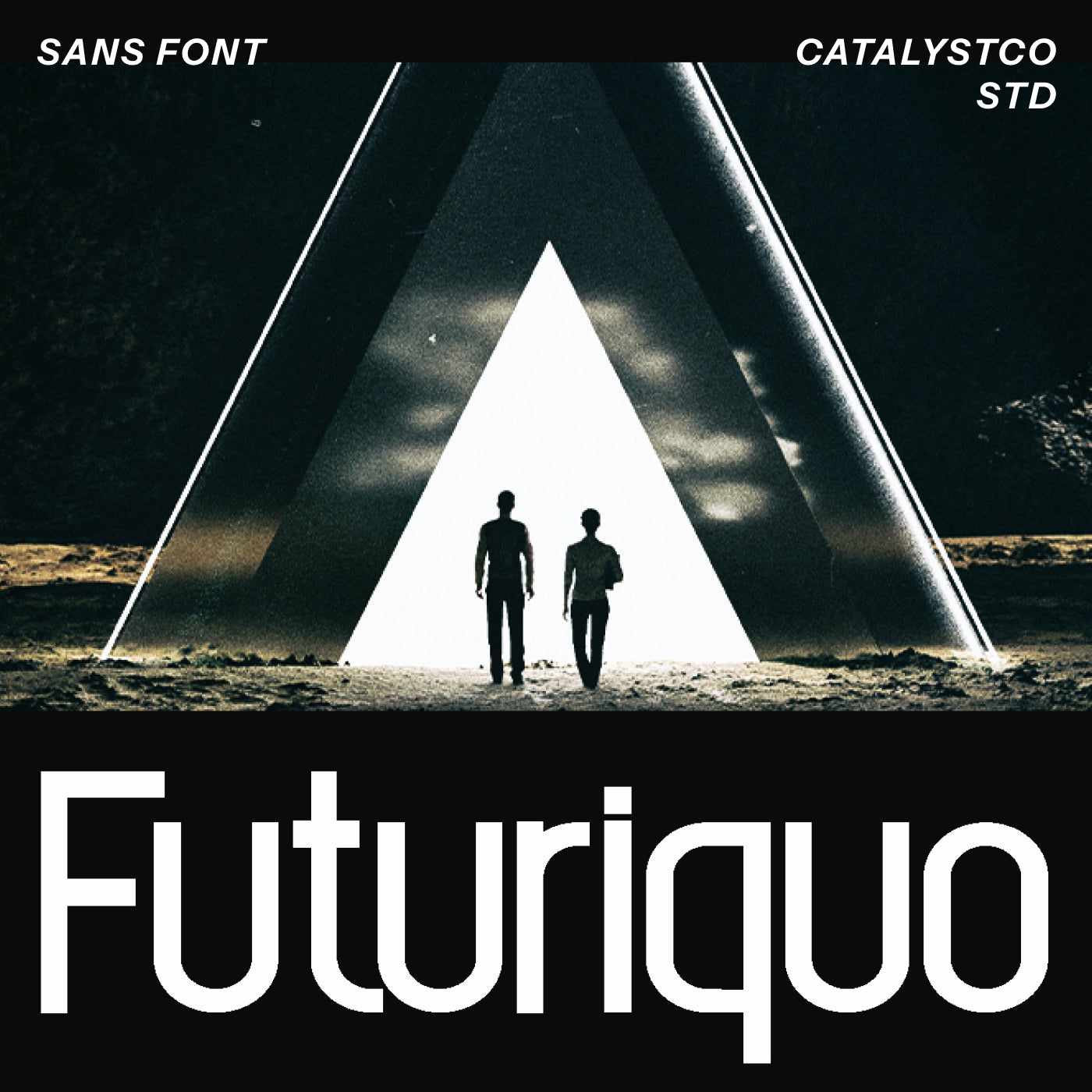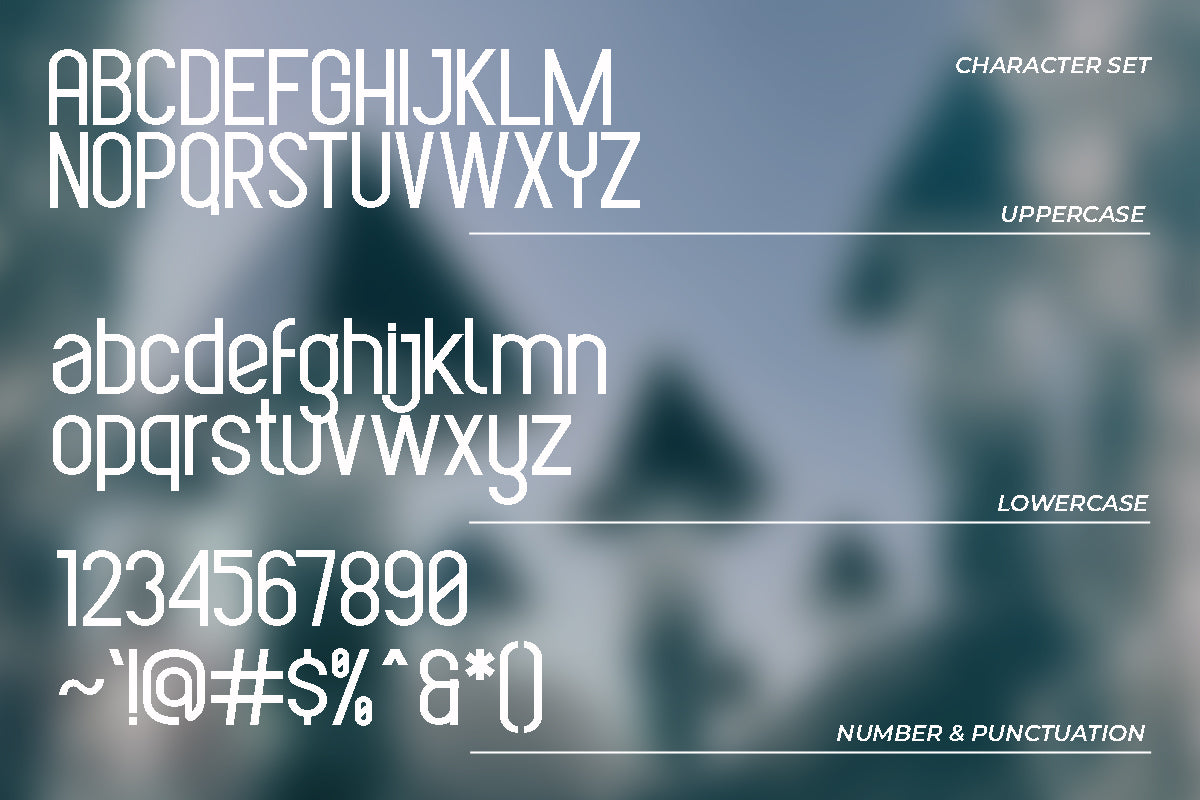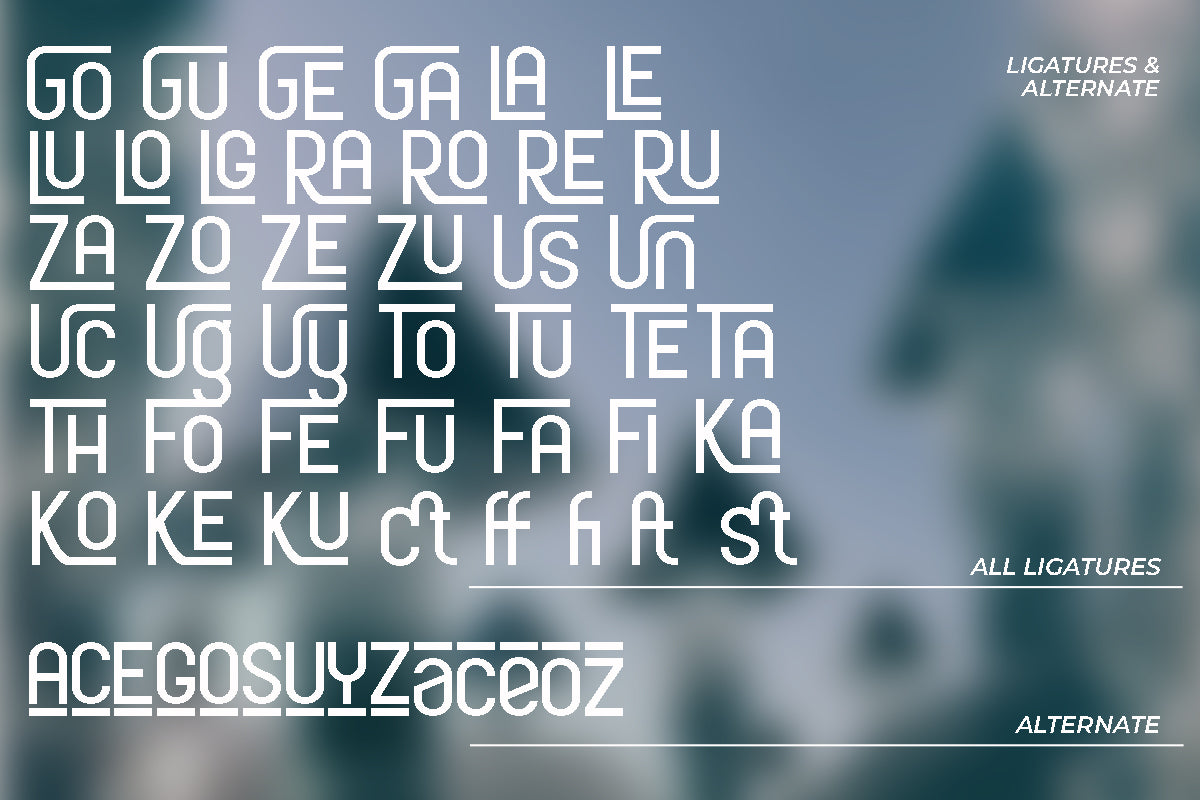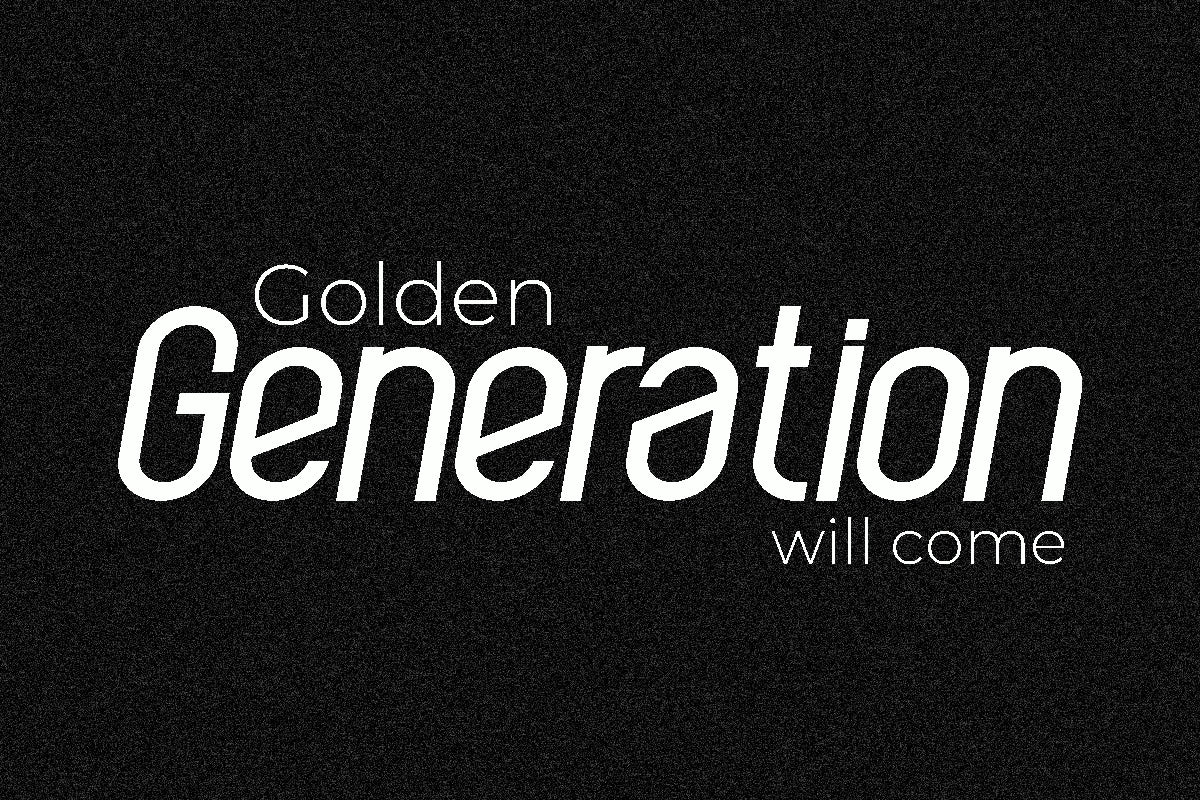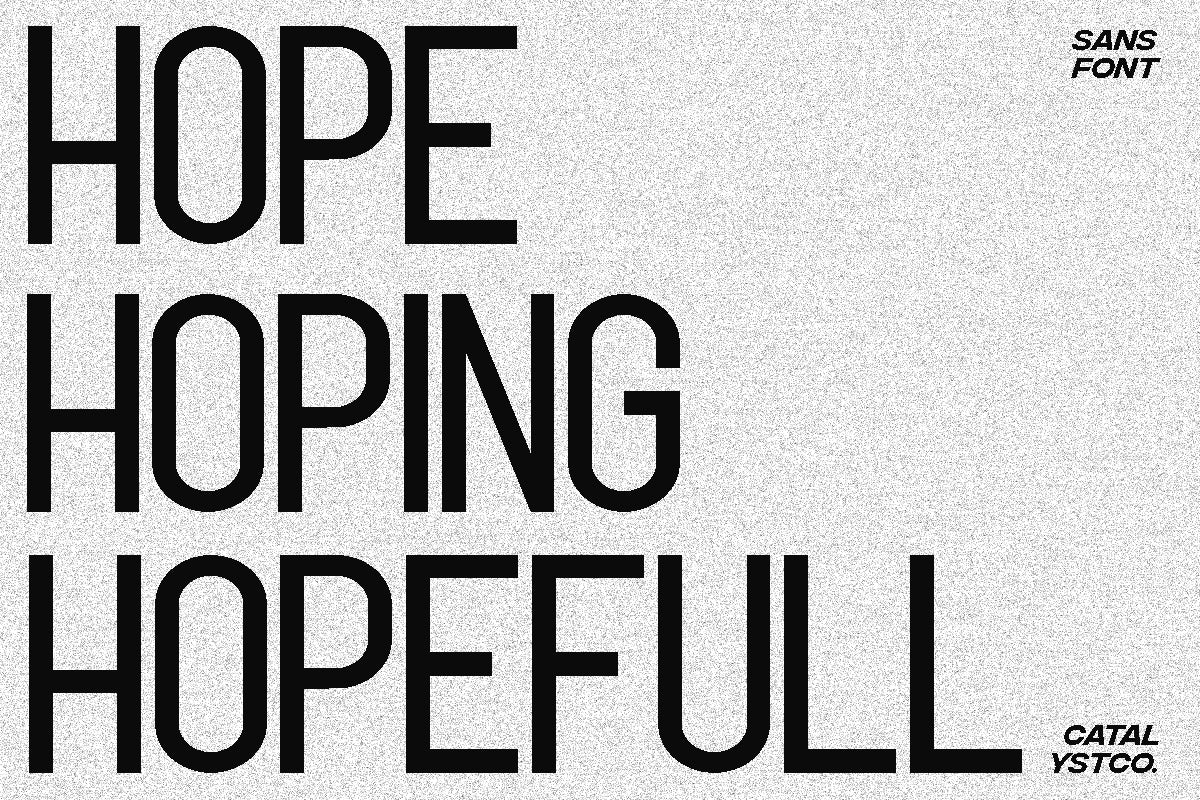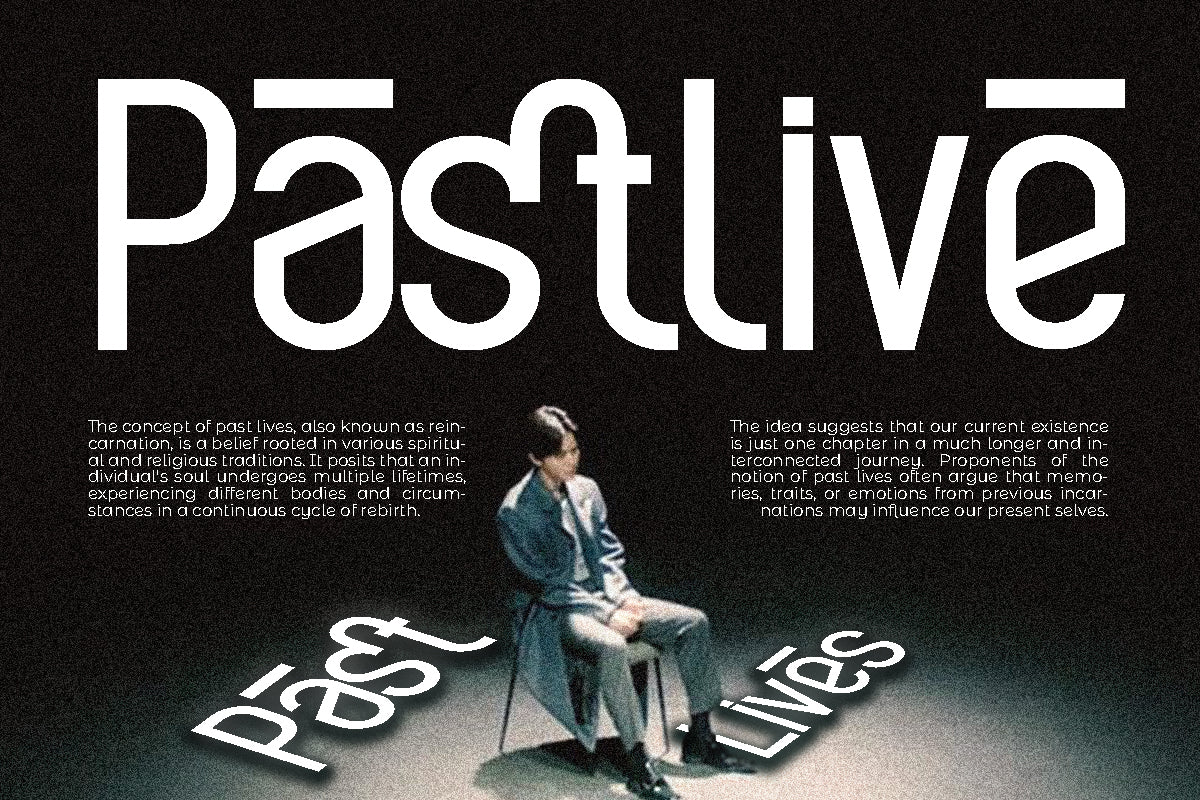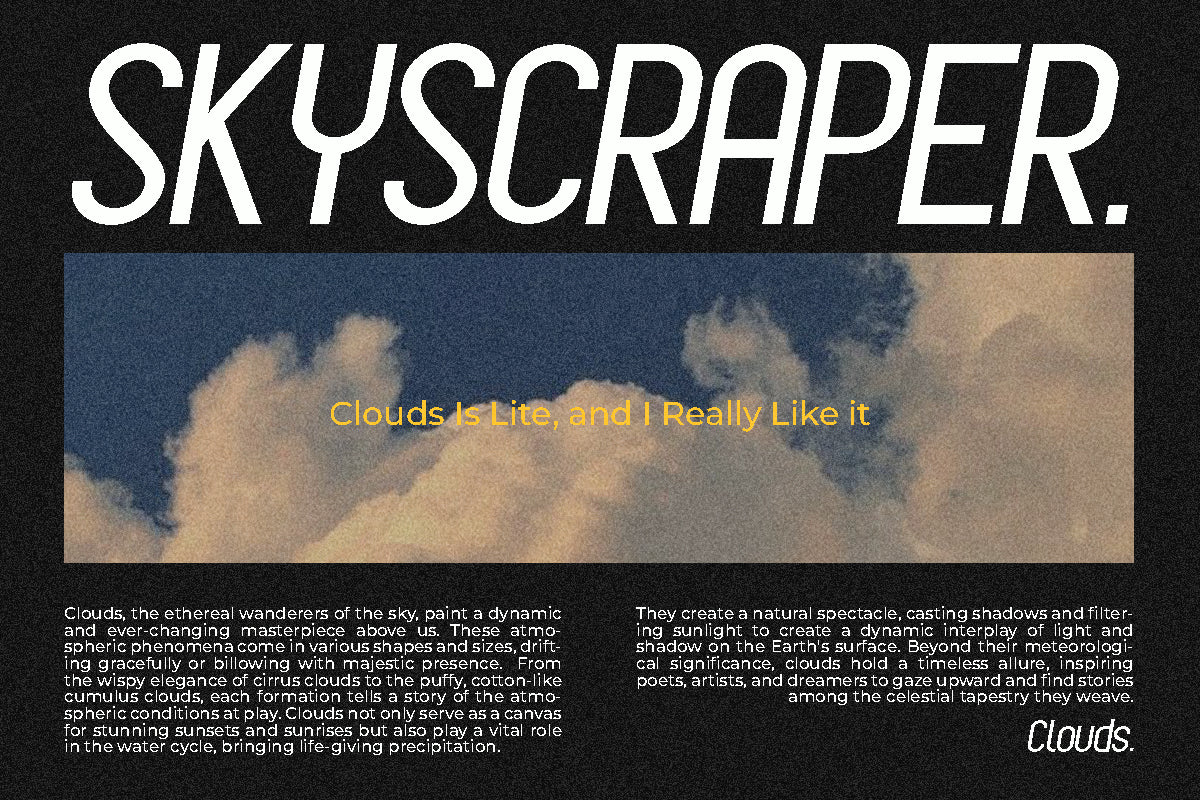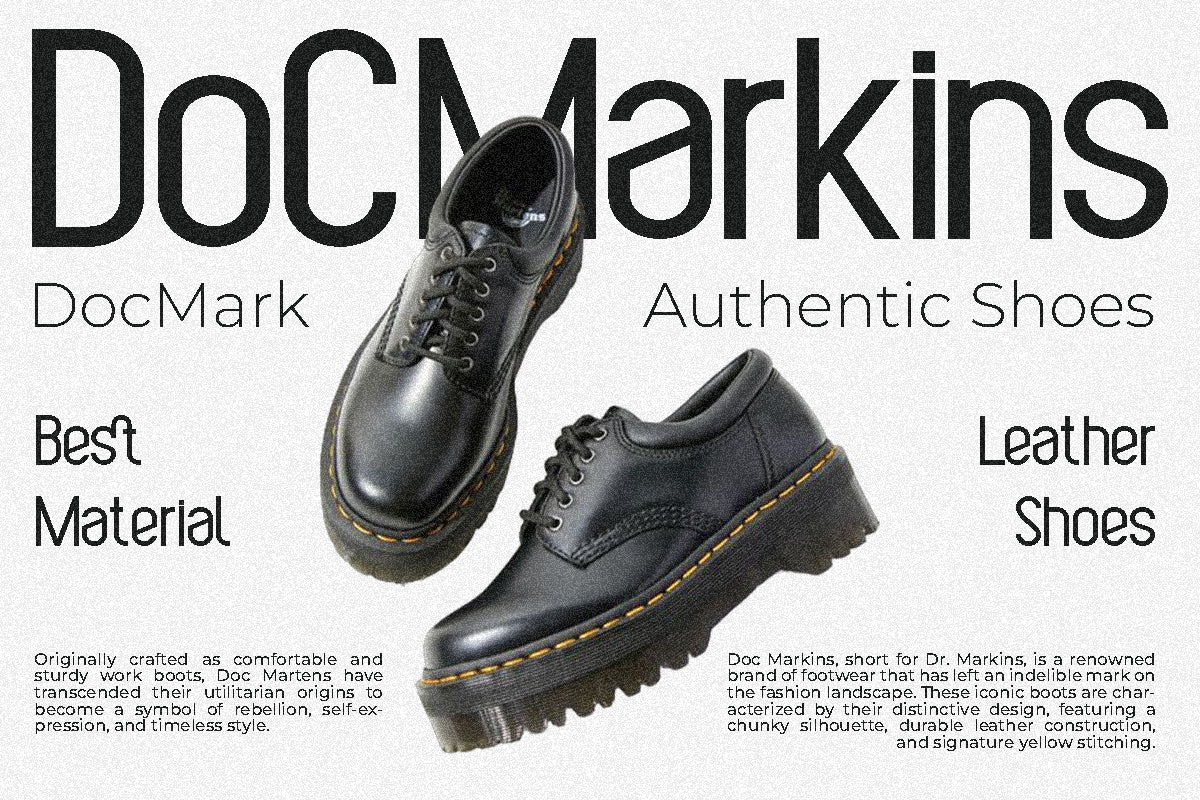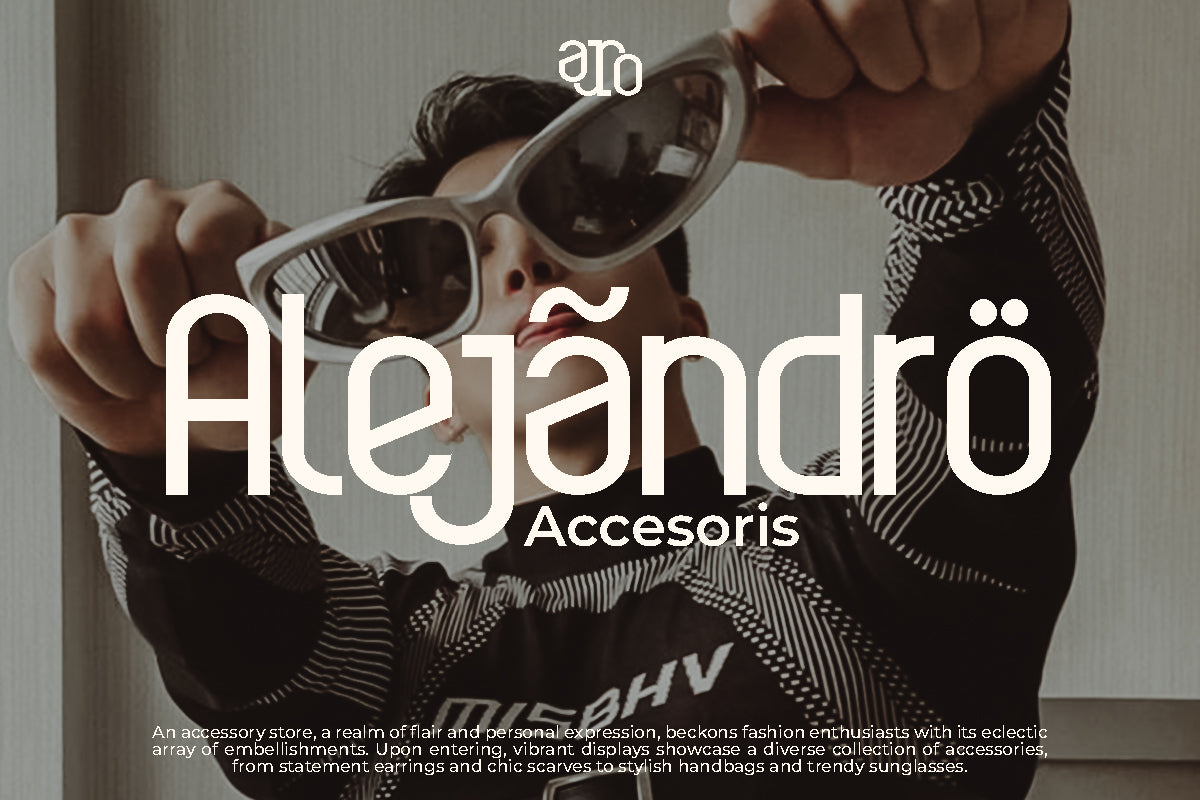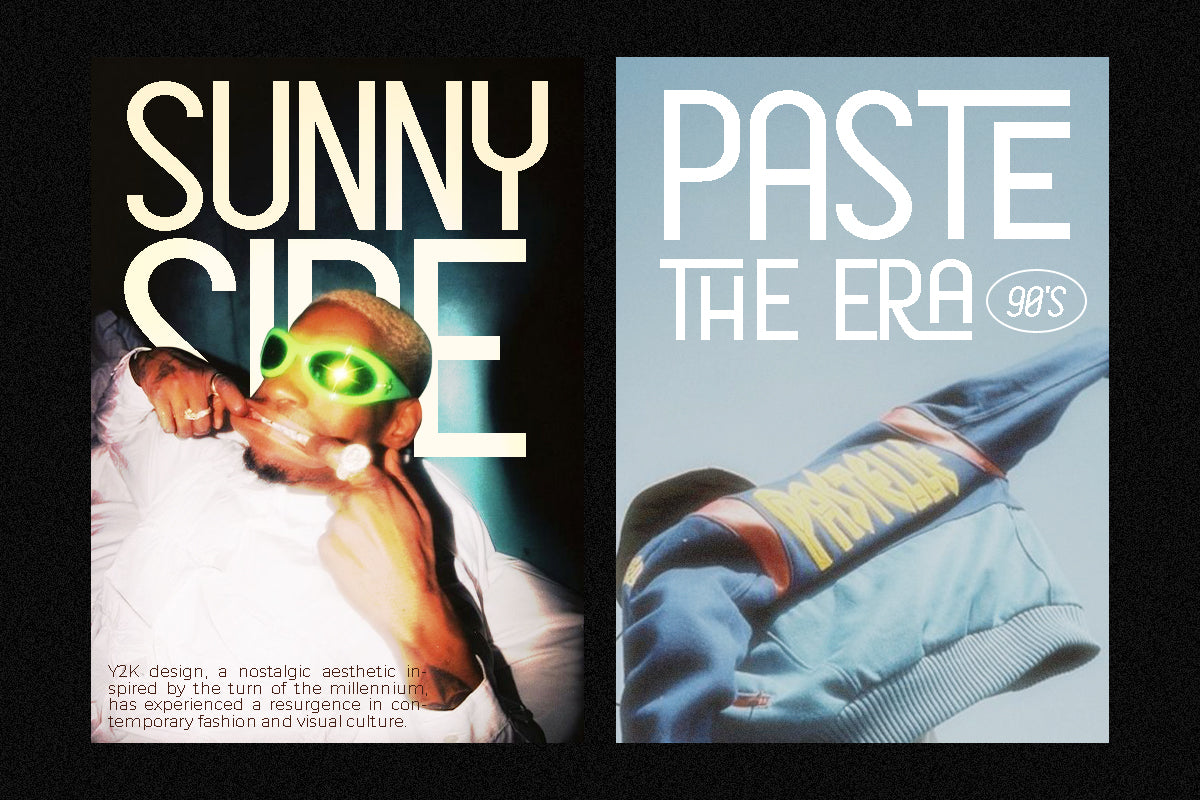
Futuriquo Sans Serif Font
Futuriquo is a futuristic sans serif typeface designed with clean geometry, extended shapes, and a sleek sci-fi aesthetic. Its tall proportions, rounded terminals, and unique letterforms create a modern and innovative character that feels both minimal and forward looking. This typeface delivers a sharp visual identity for projects that demand clarity, creativity, and technological sophistication.
Perfect for tech branding, digital interfaces, sci-fi posters, gaming visuals, modern logotypes, and editorial layouts. Futuriqo offers a professional and polished look with versatile uppercase and lowercase sets, numeric characters, and punctuation making it an excellent choice for designers seeking a premium modern sans serif with a futuristic edge.
• Ligatures & Alternate
Futuriquo is a geometric sans serif typeface featuring extended shapes, rounded terminals, and tall proportions, available in TTF, OTF, and WOFF formats. It includes uppercase and lowercase letters, numerals, punctuation, ligatures, and alternate characters.